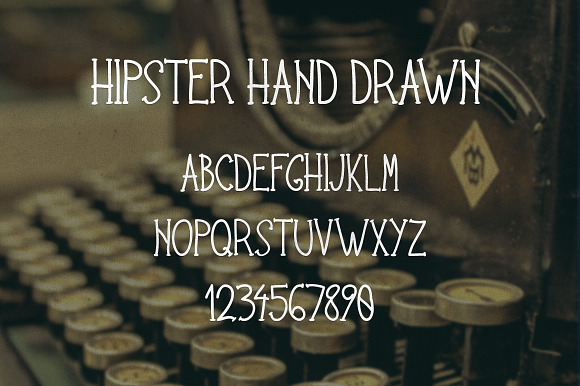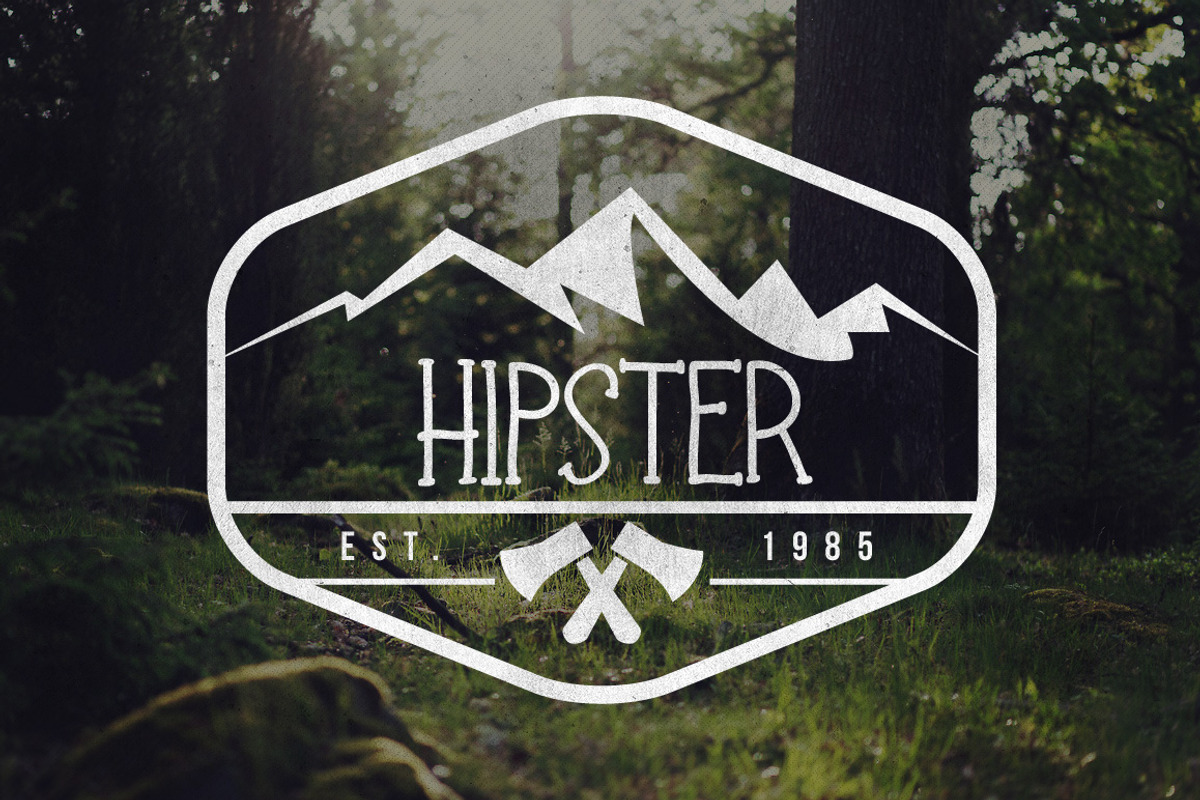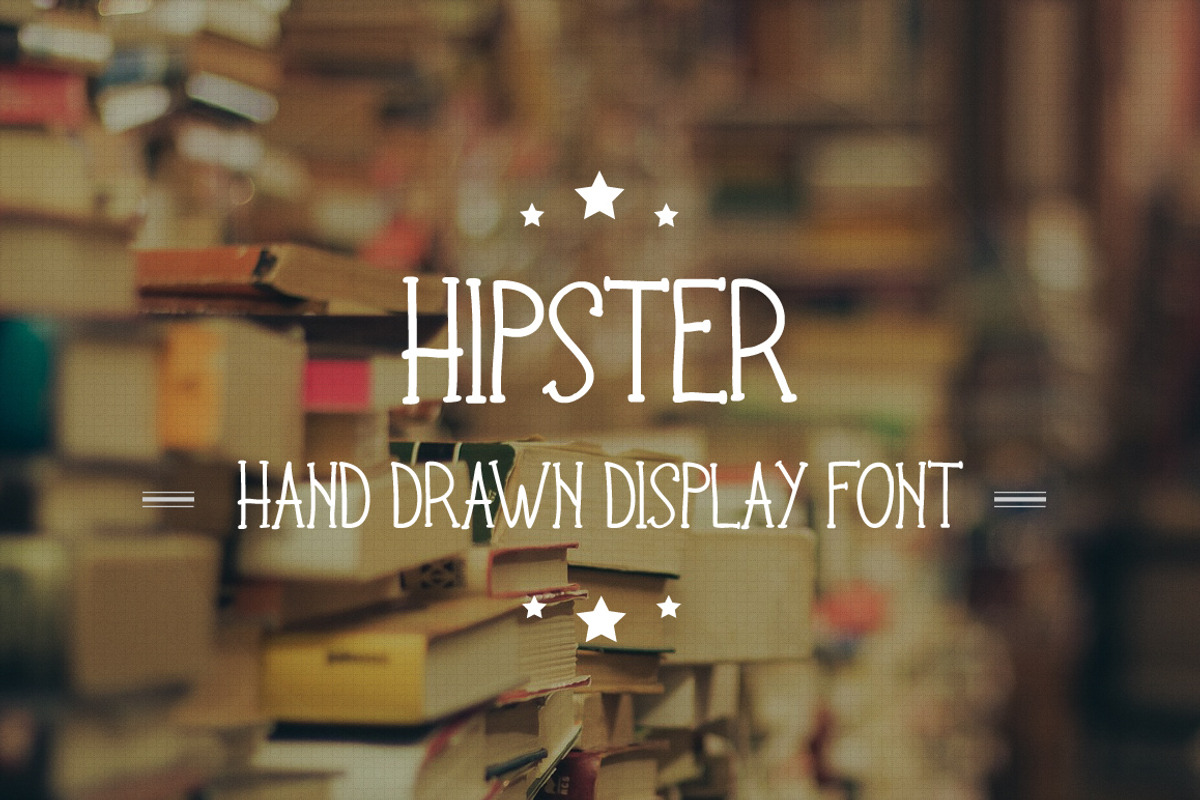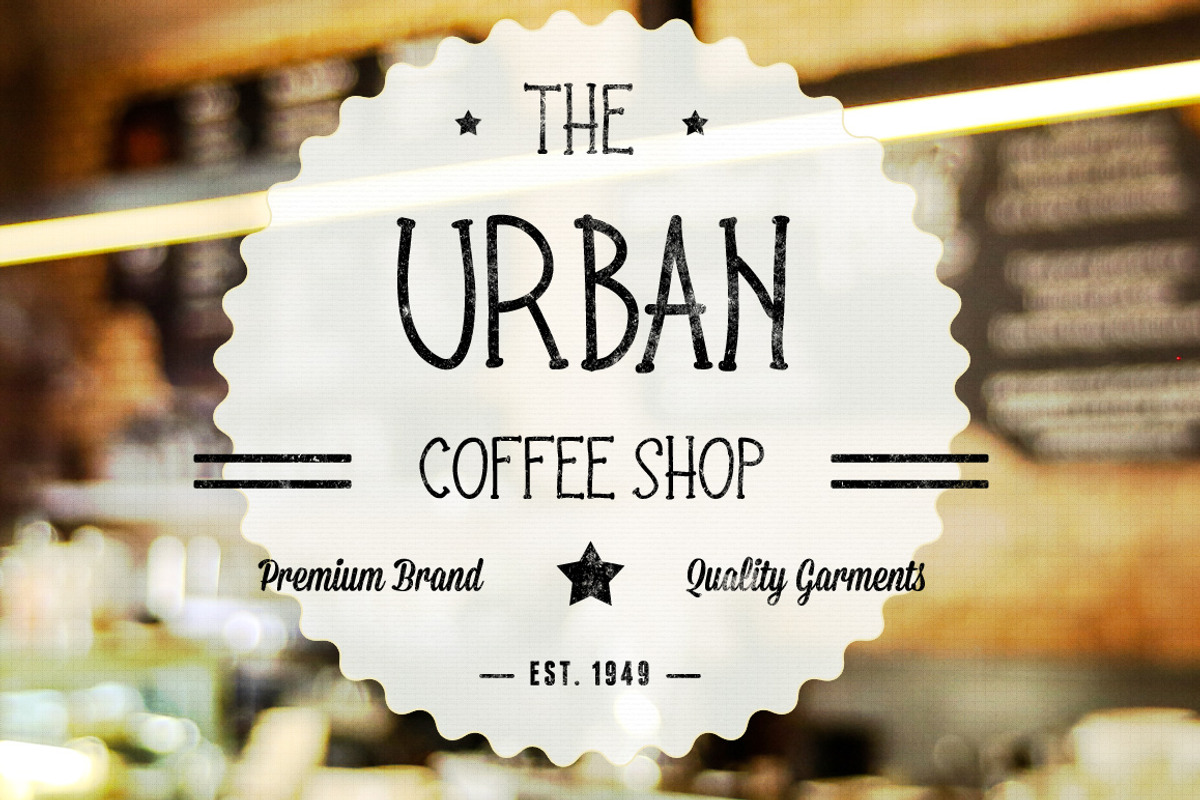
Hipster Hand Drawn Font
Hipster Slab Serif Hand Drawn Font.
Handwritten Hipster Font.
Great for posters, logos, packaging, invitations, website titles, t-shirts and more.
Hipster Hand Drawn Font by vladocar fits naturally into Branding, posters, packaging, typography.